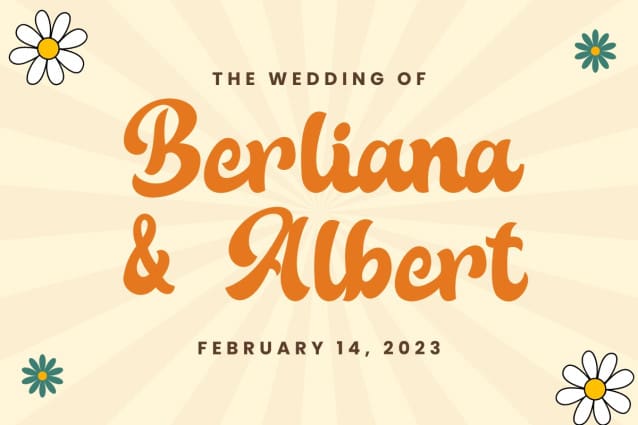
Balleny Retro Font
Balleny Retro Font, is a Retro Script font that will make your designs look unique and fun. It’s perfect for labels, quotes, posters, DIY projects, branding, packaging, greeting cards, websites, photography overlays, signs, window art, scrapbooking, tags and so much more!